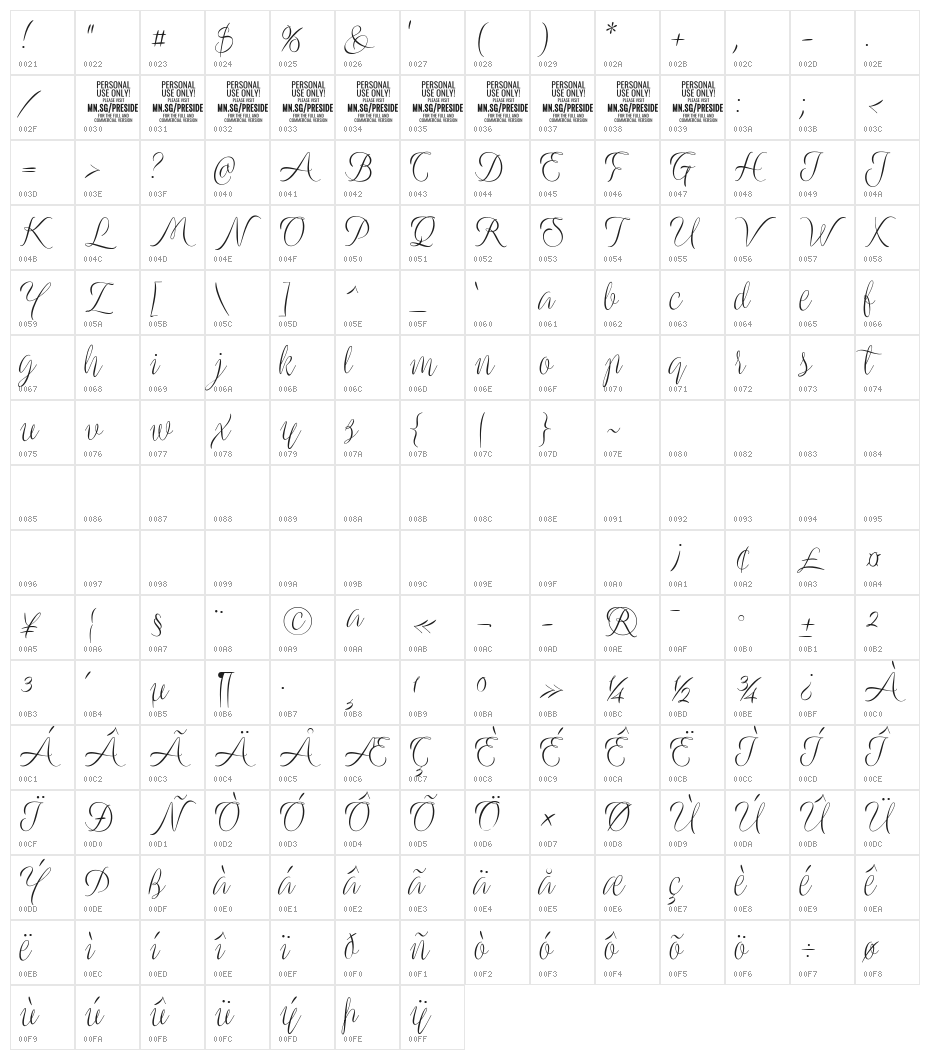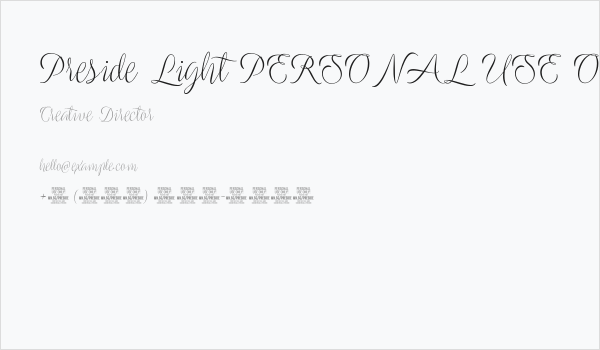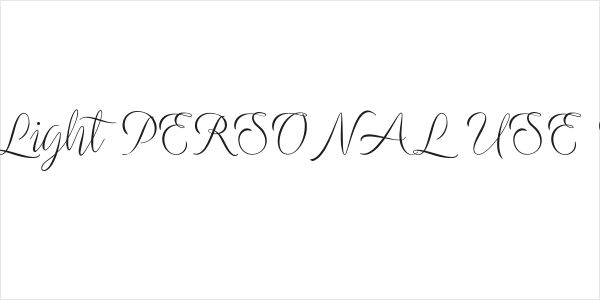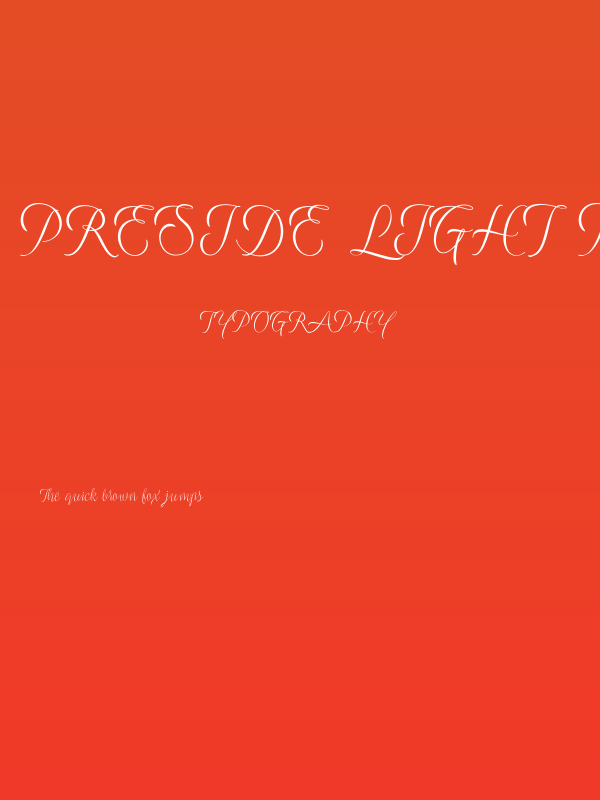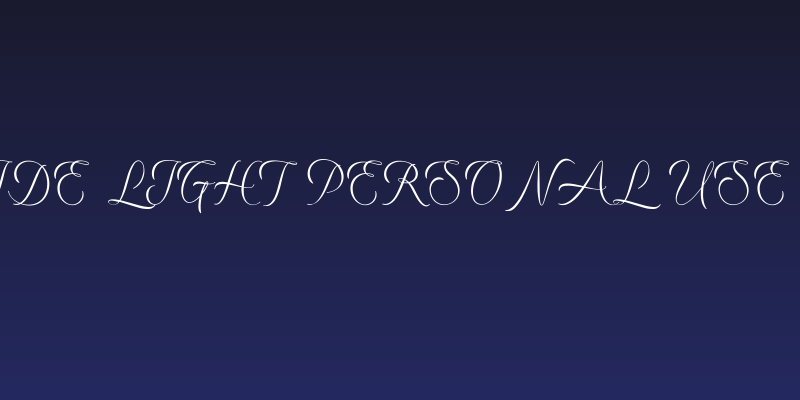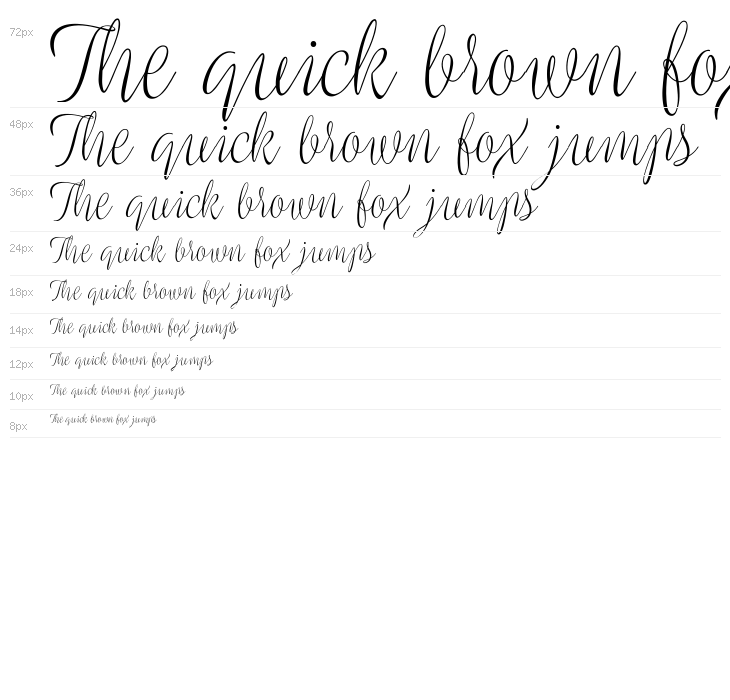
Preside Light PERSONAL USE ONLY Font
Preside Light PERSONAL USE ONLY Description
This elegant script font features a flowing, cursive style with graceful loops and swashes. The uppercase letters are ornate, with extended flourishes that add a touch of sophistication. The lowercase letters maintain a consistent slant, enhancing the fluidity of the text. The numerals and special characters are designed to complement the overall aesthetic, making them suitable for decorative purposes. The font's delicate strokes and high contrast between thick and thin lines give it a refined appearance, ideal for projects that require a touch of elegance.
| Overall Style | Elegant, Decorative |
| Proposed Projects | Ideal for wedding invitations, elegant branding, greeting cards, and decorative signage. |